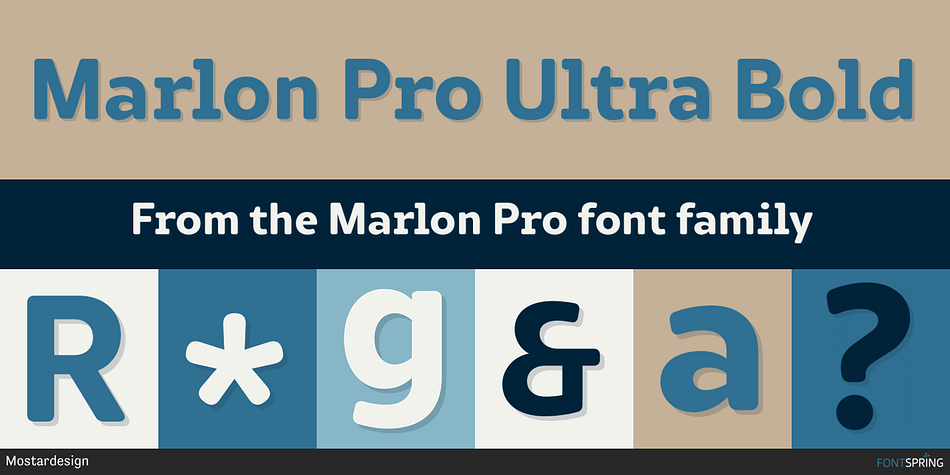
Marlon Pro Ultra Bold
Designed by Olivier Gourvat, Marlon Pro is a sans serif font family. This typeface has eighteen styles and was published by Mostardesign.
Marlon Pro is a soft sans serif font family characterized by its contemporary aspect and its warm touch. It provides advanced typographical support with features such as case sensitive forms, small caps, ligatures, alternate characters, fractions, slashed zero, circled figures, pro kerning…It comes with a complete range of figure set options – oldstyle and lining figures, each in tabular and proportional widths.
It comes in 9 weights with corresponding italics and it’s suited for multiple purposes including editorial use, web font, apps, digital ads, ebook, and also for advertising, long text, packaging and branding.
As a modern sans serif font family, Marlon Pro Sans has true italics to give more style in long texts. It has also an extended character set to support Central and Eastern European as well as Western European languages.